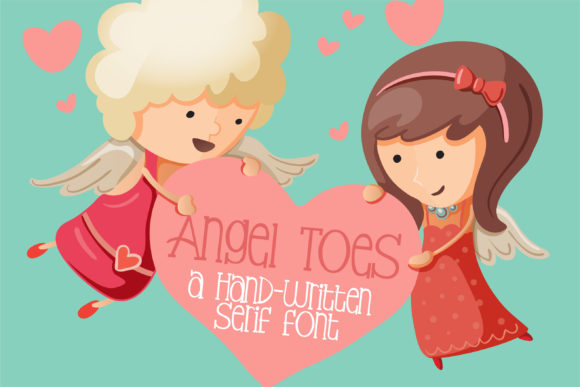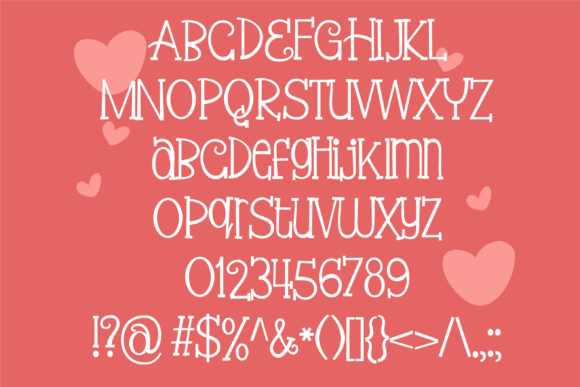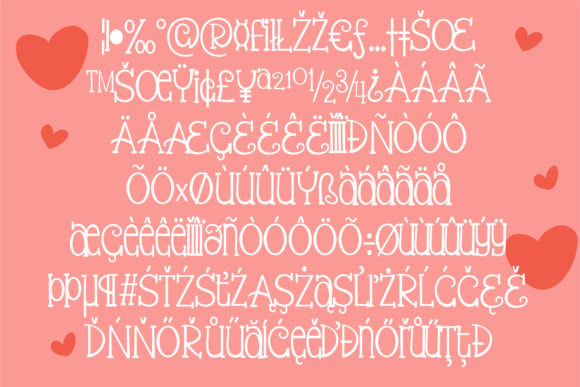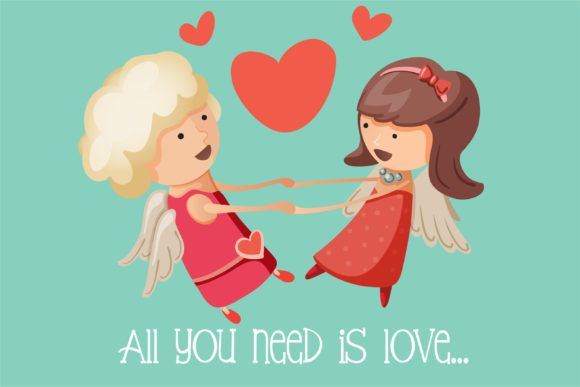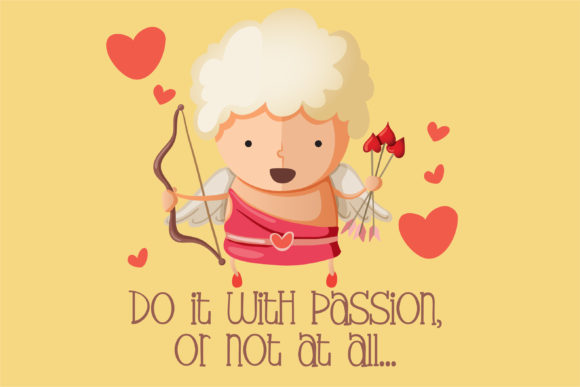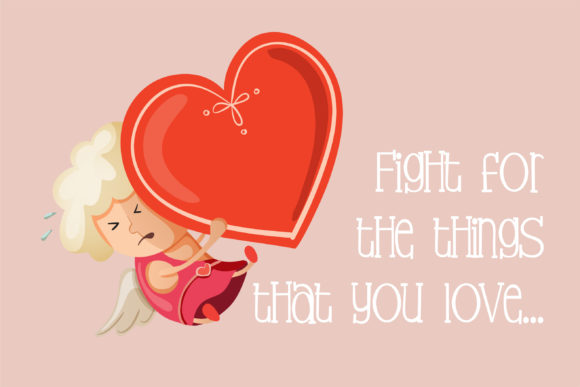
Angel Toes Font
About Angel Toes Font
Angel Toes is a cute and casual handwritten font. Its playful style makes it perfect for any design you can think of. Add it with confidence to your creative projects, and notice how they capture everyone’s attention!